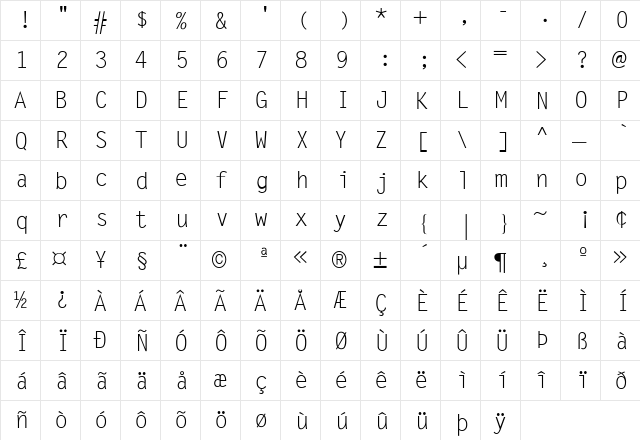
Sandy II Regular Regular
Design Context for Sandy II Regular Typeface
Sandy II Regular takes a measured approach to typography — its balanced proportions and neutral character make it a reliable workhorse for both digital and print work.